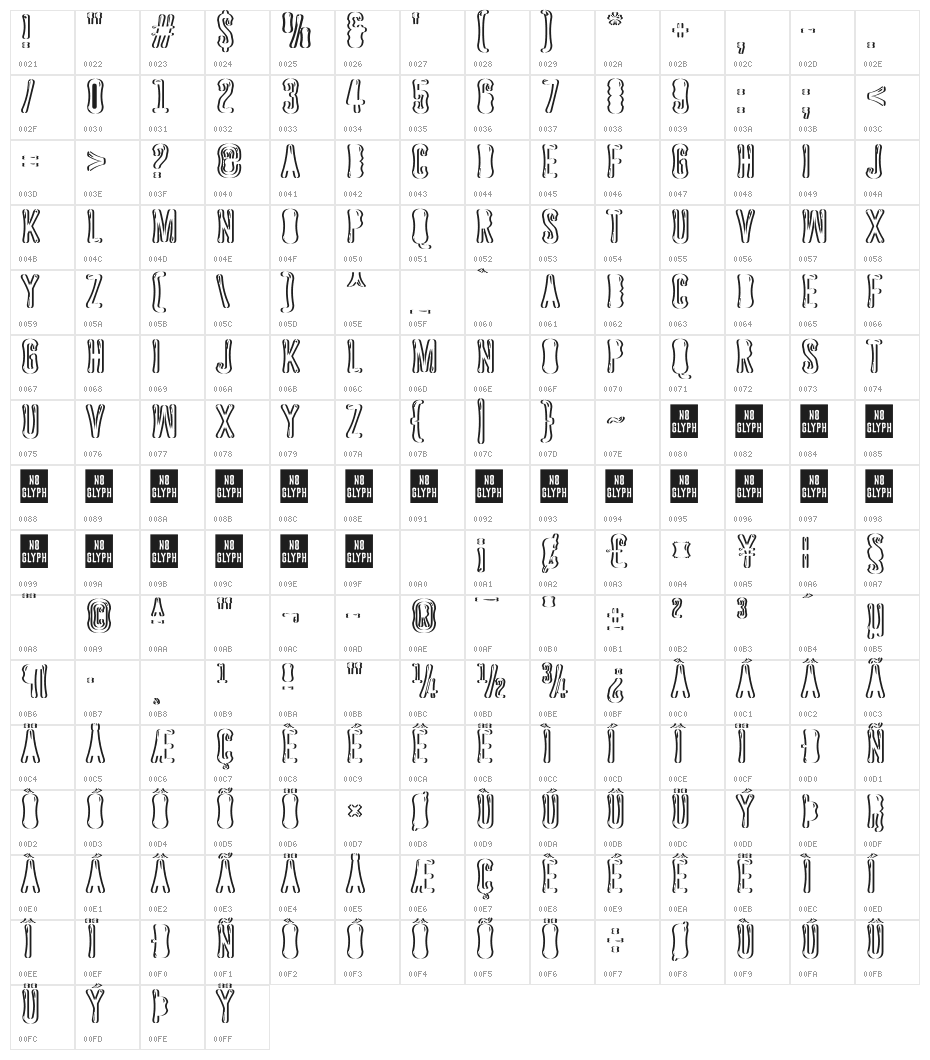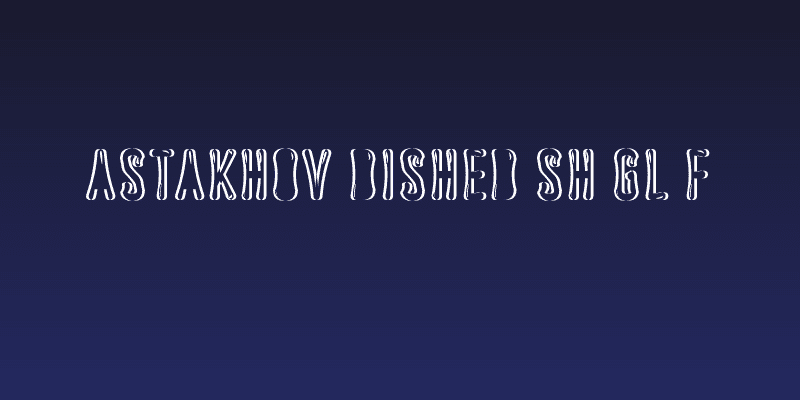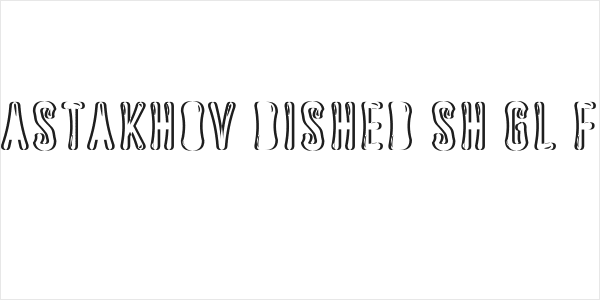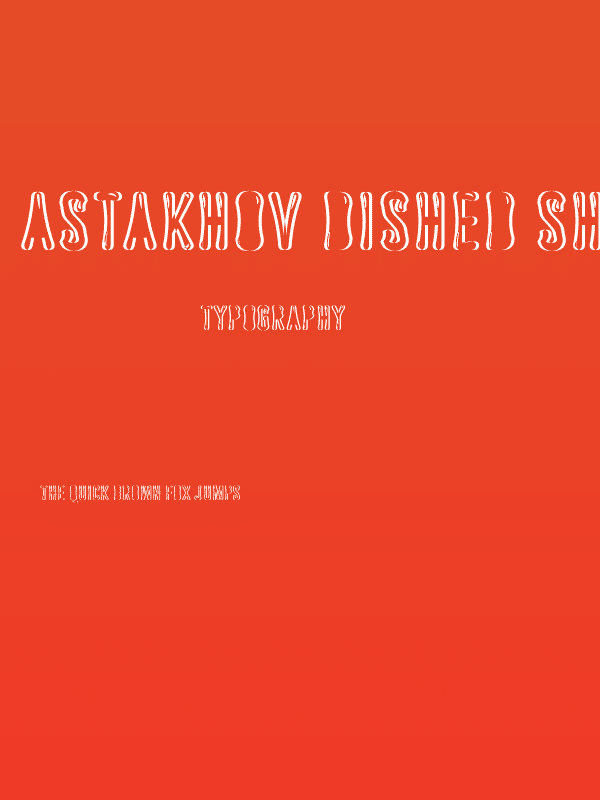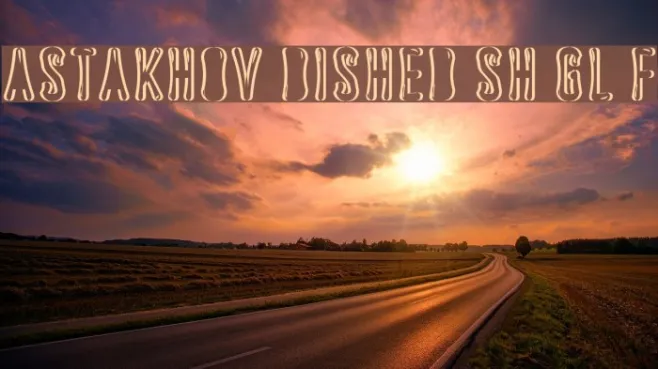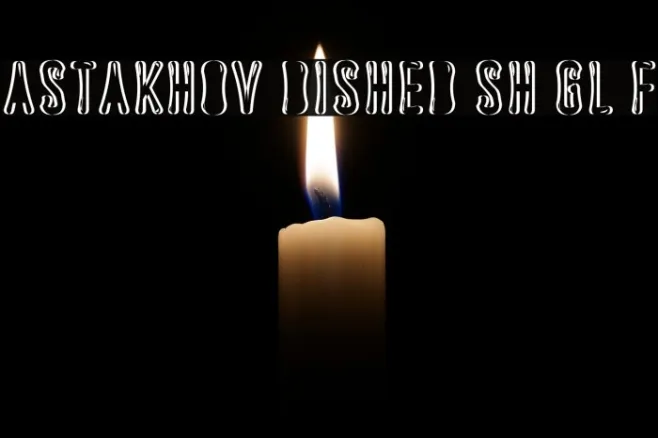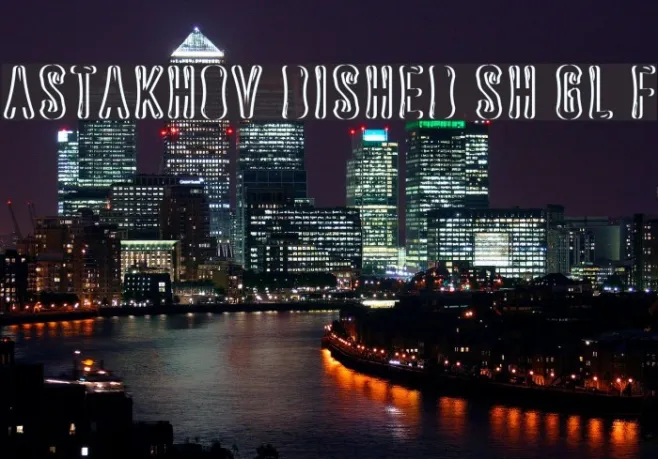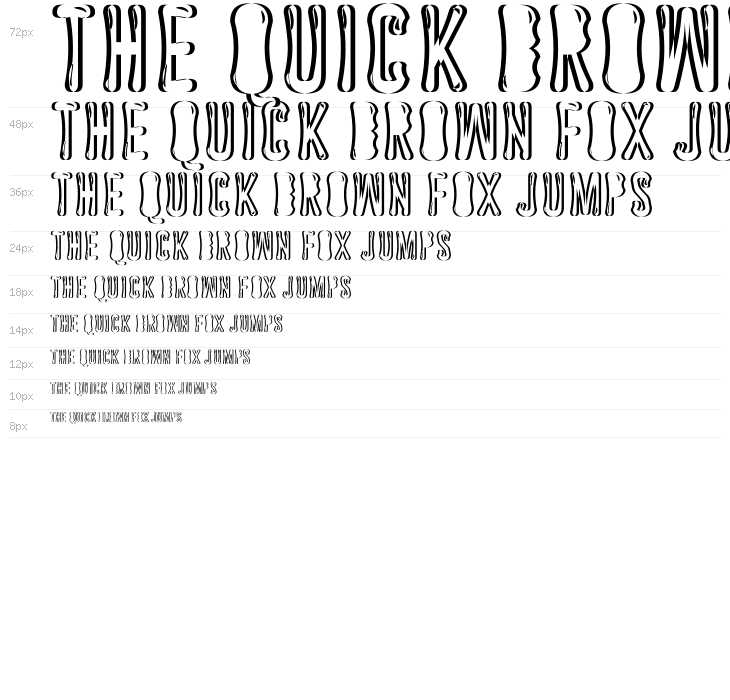
Astakhov Dished Sh Gl F Font
Astakhov Dished Sh Gl F Description
This font features a bold and decorative style with a unique, artistic flair. Each character is designed with a three-dimensional effect, giving the illusion of depth and shadow. The strokes are thick and consistent, with a playful yet sophisticated appearance. The uppercase and lowercase letters maintain a uniform style, while the numerals and special characters complement the overall design. This font stands out with its creative use of negative space and intricate detailing, making it ideal for eye-catching designs.
| Proposed Projects | Ideal for posters, branding, headlines, and creative projects requiring a standout typeface. |